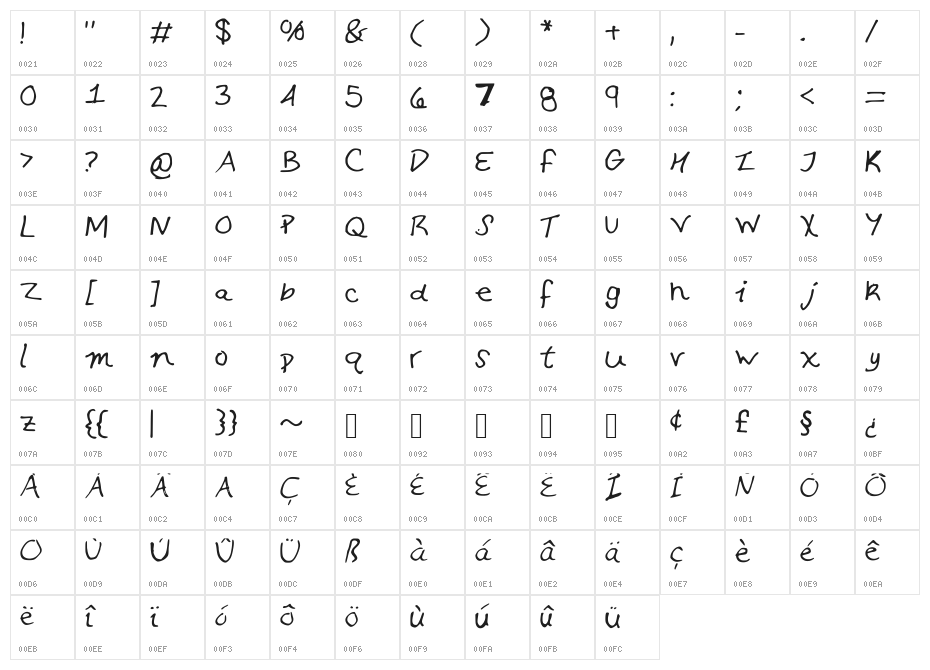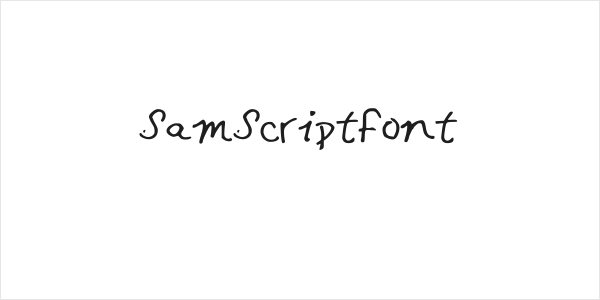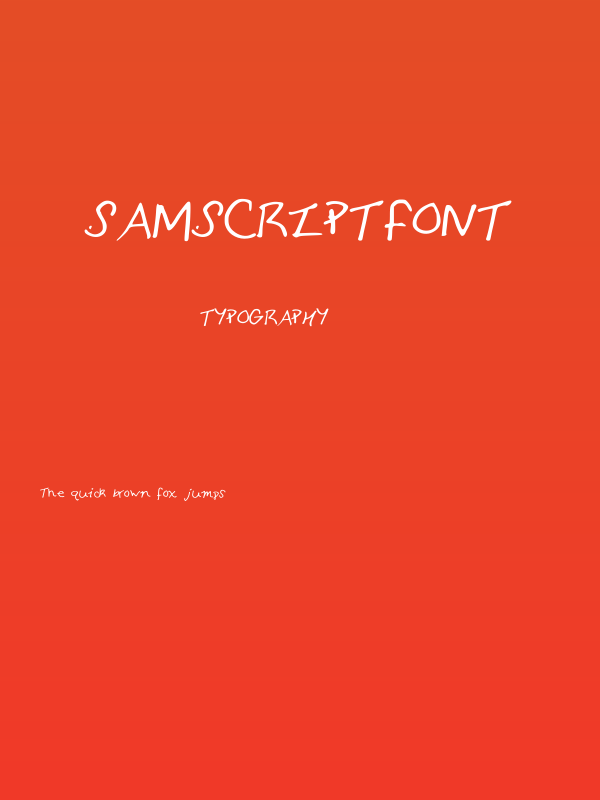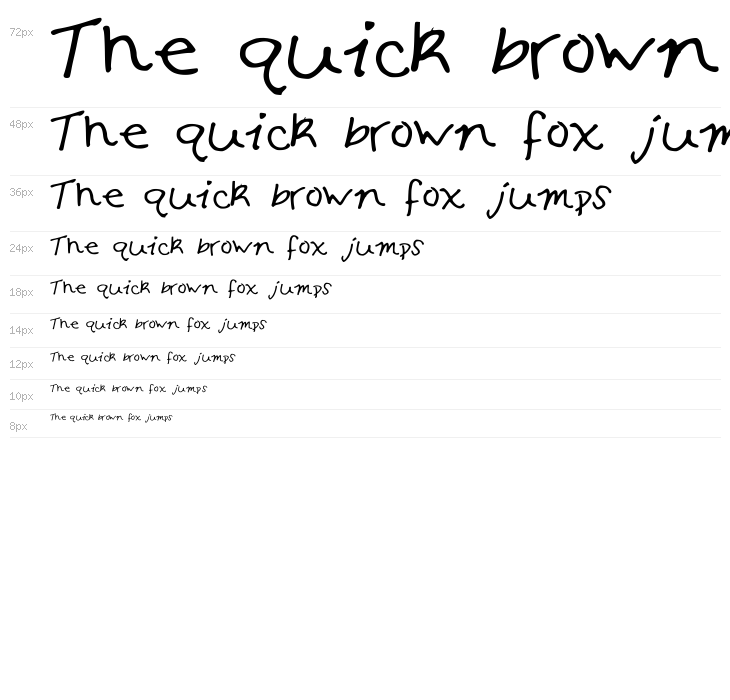
SamScriptFont Font
SamScriptFont Description
This font exhibits a playful and casual handwritten style, characterized by its fluid strokes and slightly irregular letterforms. The uppercase and lowercase letters maintain a consistent flow, giving the impression of natural handwriting. The numbers and special characters are crafted with the same informal touch, ensuring a cohesive look across all glyphs. The font's design is approachable and friendly, making it suitable for projects that require a personal or informal tone. Its legibility is maintained despite the casual style, making it versatile for various applications.
| Use Case | Headlines, Informal text, Personal projects |
| Proposed Projects | Ideal for greeting cards, personal invitations, casual branding, and social media graphics. |